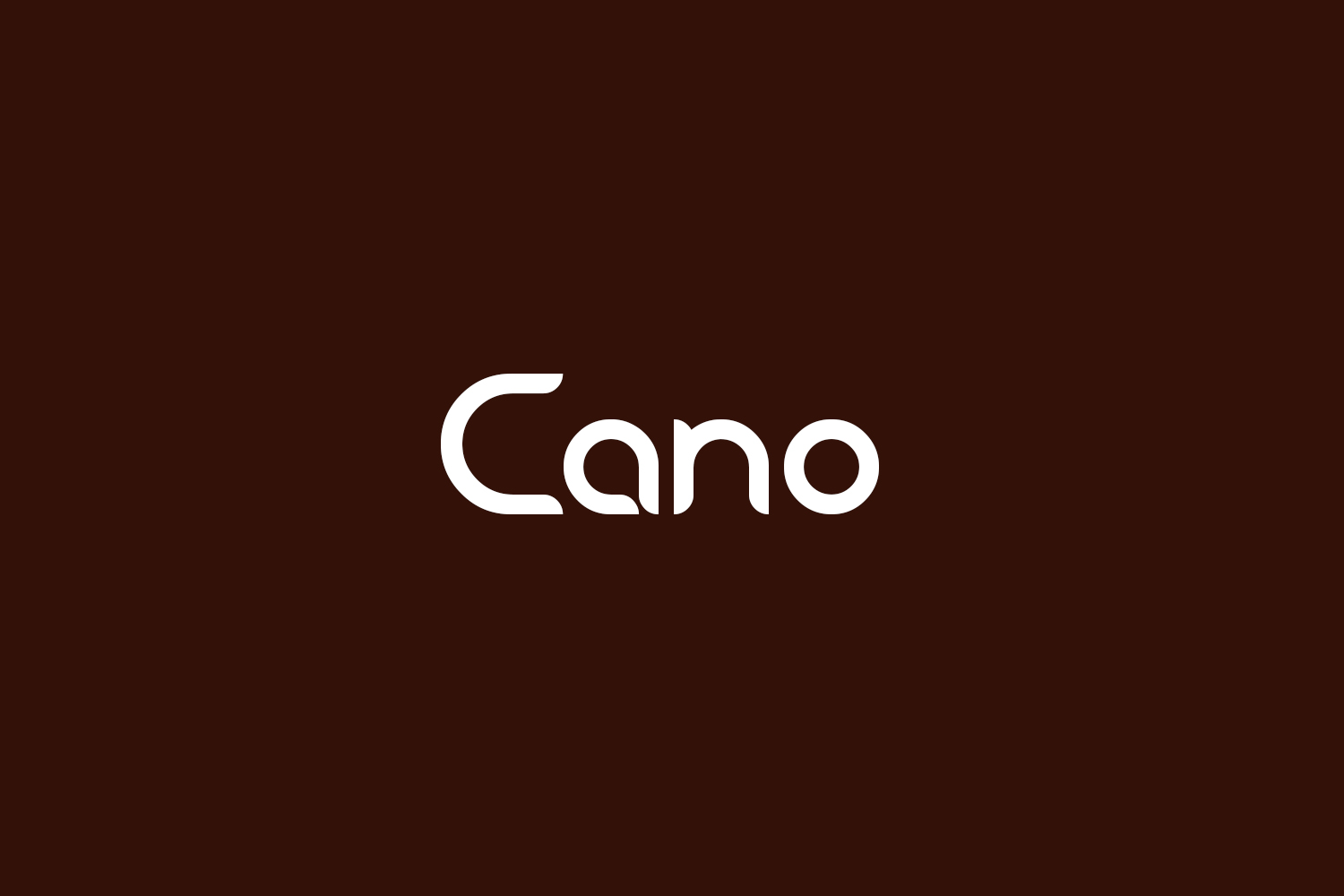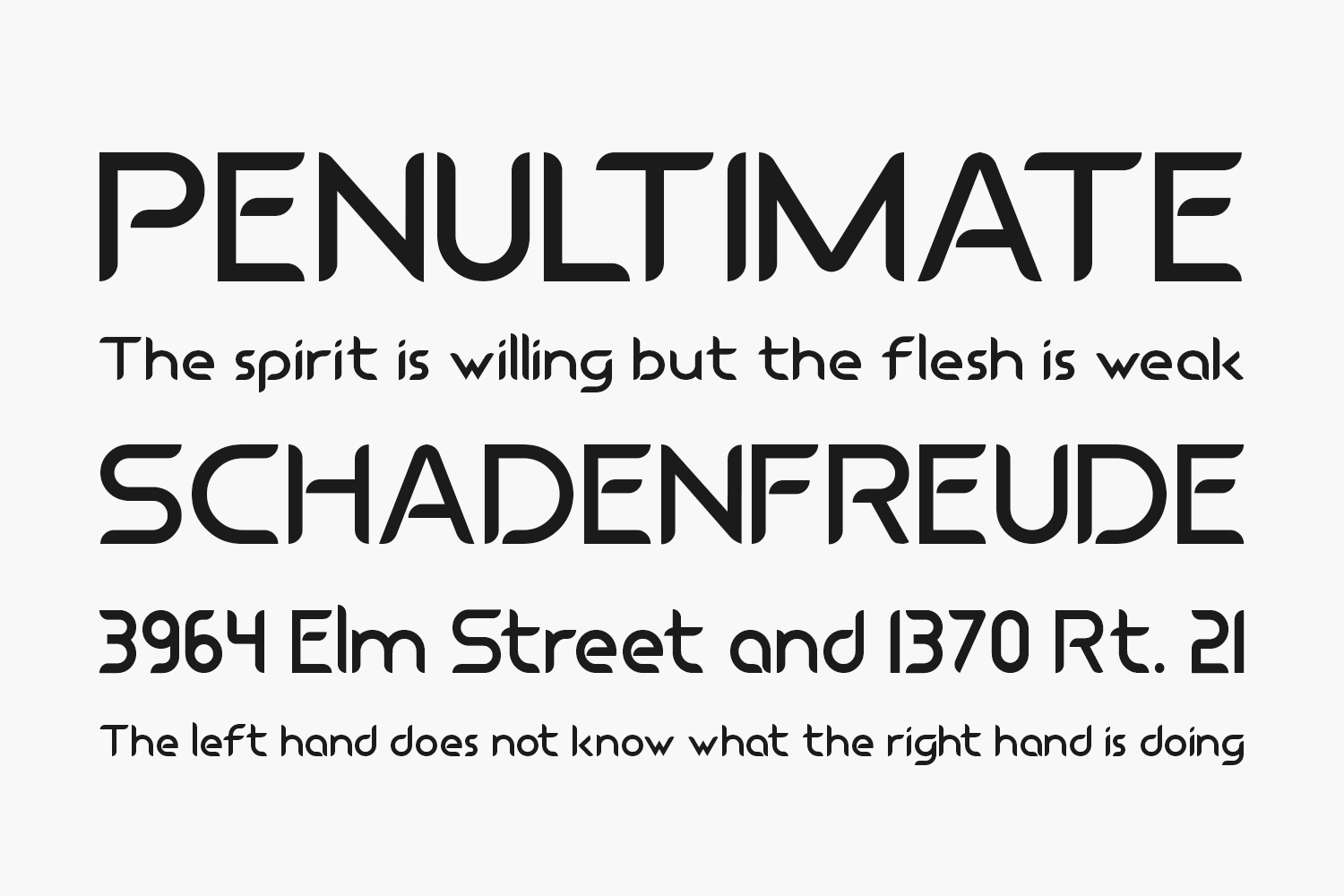
Cano Free Font is the sans serif font with cutting edge and for personal use. It will be perfect for many of your designs such as banners, brochures, logos, magazines, etc. Please purchase the full version for commercial use.
Designed by Sandylukee